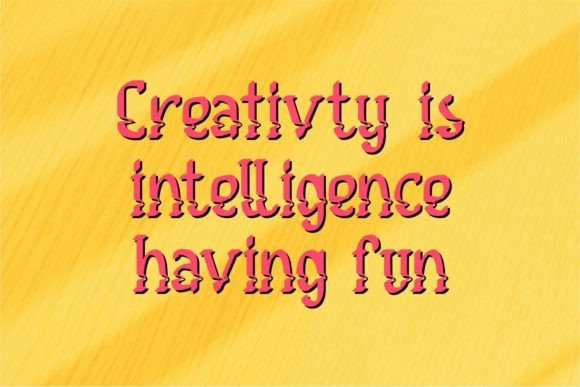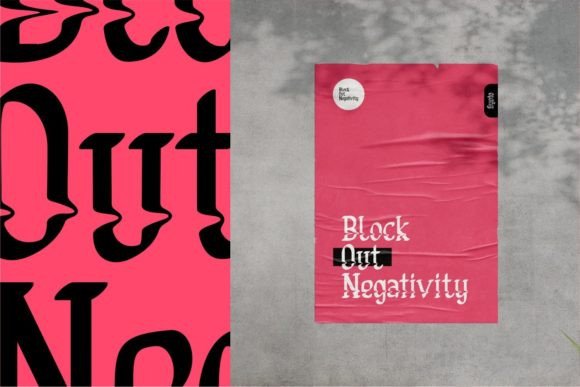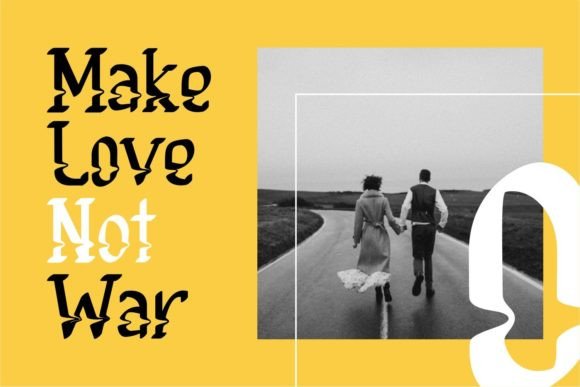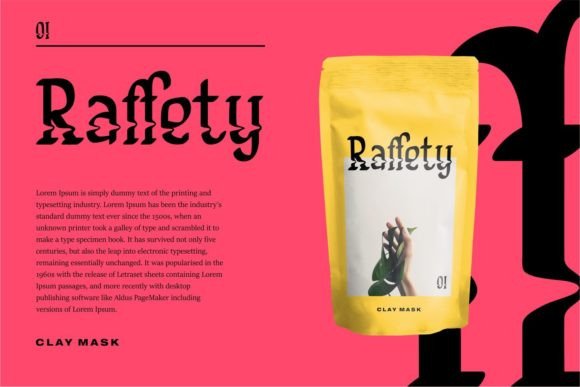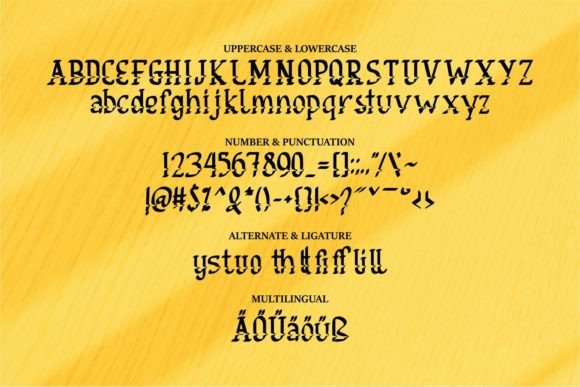
Fiyoto Font: The Ultimate Guide to This Fun and Quirky Display Font
Fiyoto is a fun and quirky display font that has captured the hearts of designers and crafters alike. With its incredibly distinct and timeless style, it’s no wonder why Fiyoto has become a popular choice for creating spectacular designs. In this article, we’ll dive into the world of Fiyoto Font, exploring its unique features, uses, and benefits.
The Story Behind Fiyoto Font
Fiyoto Font is a display font designed to make a statement. Its quirky and fun style is perfect for adding a touch of personality to any design project. Whether you’re working on a logo, poster, or social media graphic, Fiyoto Font is sure to turn heads. The font’s unique design is inspired by a mix of classic and modern elements, making it both timeless and trendy.
Key Features of Fiyoto Font
So, what makes Fiyoto Font so special? Here are some of its key features:
- Distinctive style: Fiyoto Font has a one-of-a-kind design that’s sure to stand out from the crowd.
- Timeless appeal: Despite being a modern font, Fiyoto has a classic feel that won’t go out of style.
- Quirky and fun: Fiyoto Font is perfect for adding a touch of whimsy to your designs.
- Highly versatile: Fiyoto Font can be used for a wide range of design projects, from logos and posters to social media graphics and more.
Uses for Fiyoto Font
Fiyoto Font is a versatile font that can be used for a variety of design projects. Here are some ideas to get you started:
- Logos and branding: Fiyoto Font is perfect for creating unique and memorable logos.
- Posters and flyers: Add a touch of personality to your posters and flyers with Fiyoto Font.
- Social media graphics: Use Fiyoto Font to create eye-catching social media graphics that will stand out from the crowd.
- Invitations and cards: Fiyoto Font is a great choice for creating custom invitations and cards.
Benefits of Using Fiyoto Font
So, why should you choose Fiyoto Font for your design projects? Here are some benefits:
- Instant recognition: Fiyoto Font is sure to grab attention and leave a lasting impression.
- Unique style: Fiyoto Font will help your designs stand out from the crowd.
- High-quality design: Fiyoto Font is designed to high-quality standards, ensuring crisp and clear text.
Tips for Using Fiyoto Font
Here are some tips for getting the most out of Fiyoto Font:
- Use it sparingly: Fiyoto Font is a bold font, so use it sparingly to avoid overwhelming your design.
- Pair it with other fonts: Experiment with pairing Fiyoto Font with other fonts to create a unique look.
- Experiment with colors: Fiyoto Font looks great in a variety of colors, so don’t be afraid to experiment.
Fiyoto Font is a fun and quirky display font that’s perfect for designers and crafters looking to add a touch of personality to their designs. With its incredibly distinct and timeless style, Fiyoto Font is sure to turn heads. Whether you’re working on a logo, poster, or social media graphic, Fiyoto Font is a great choice. So why not give it a try and see what amazing designs you can create?